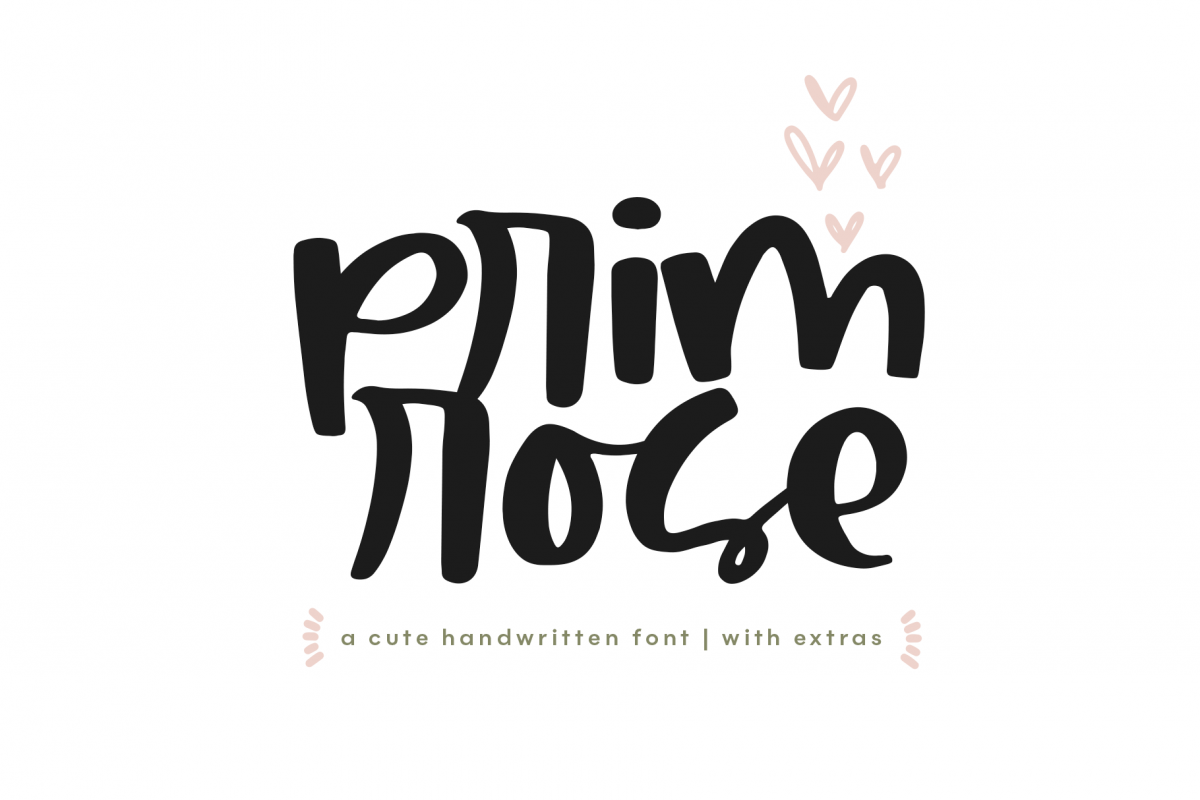
Primrose - Handwritten Script Font with Extras
Primrose is handwritten font with a fun and quirky feel!
It comes with Primrose Extras - a complimentary doodle font.
Primrose is perfect for modern projects, headings, blogs, logos, brandings, invitations and more!